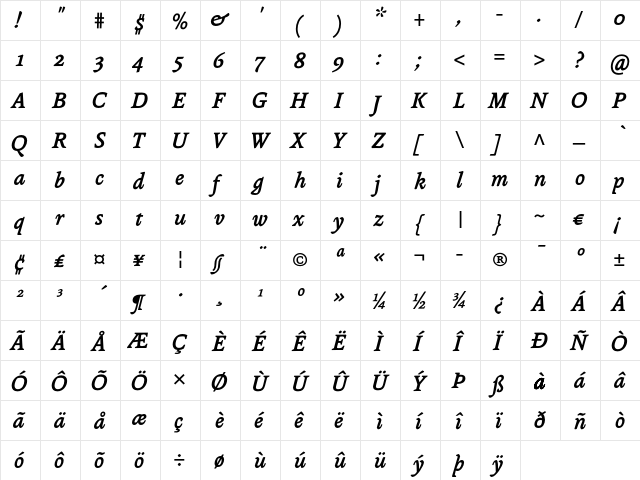
Andralis ND OsF BoldItalic
Design Context for Andralis ND OsF Typeface
Andralis ND OsF is a composed and adaptable typeface that performs quietly and consistently across a wide range of design contexts. Its italic angle brings a sense of urgency and motion to the letterforms. Its bold stroke weight gives it real presence on the page.
Pro Tip: Try Andralis ND OsF for annotation and caption copy alongside an upright companion — the contrast in angle creates a dynamic but ordered typographic system.